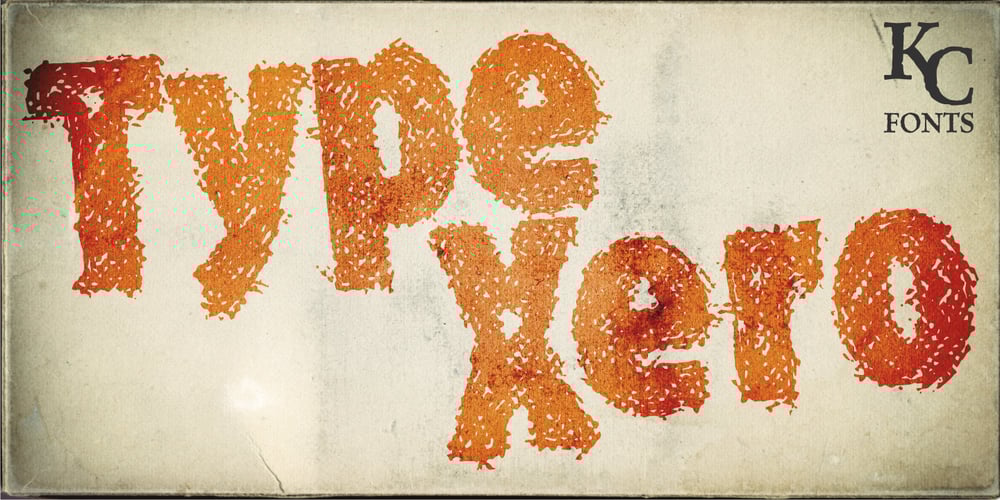
Type Xero Font Family was designed by Kevin Christopher and published by KC Fonts. Type Xero contains 4 styles and family package options. Type Xero is a grungy, textured, yet a not too over the top, messy font for your works. It comes in regular and italic for a simple but effective look to your creative works.